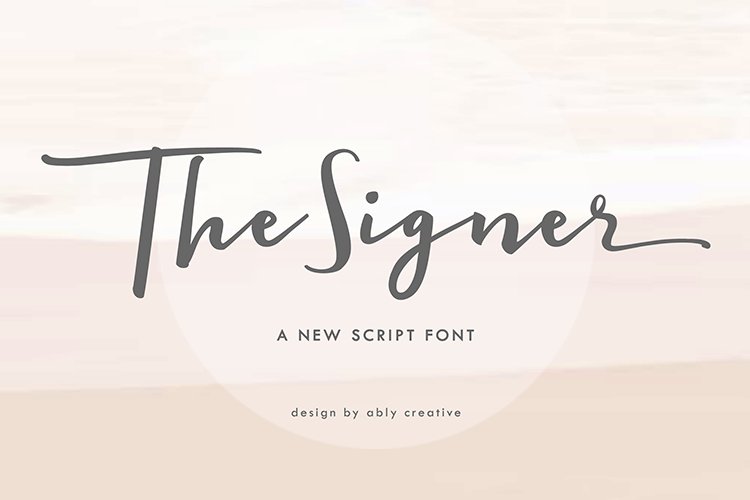
The signer is an organic handwritten font that is suitable for branding, signature, wedding invitation, promotion, product packaging, and other needs. This font is modern, simple, but still authentic. You will get full set of lowercase and uppercase letters, numerals and punctuation, multilingual symbols,ligatures and alternates lowercase.